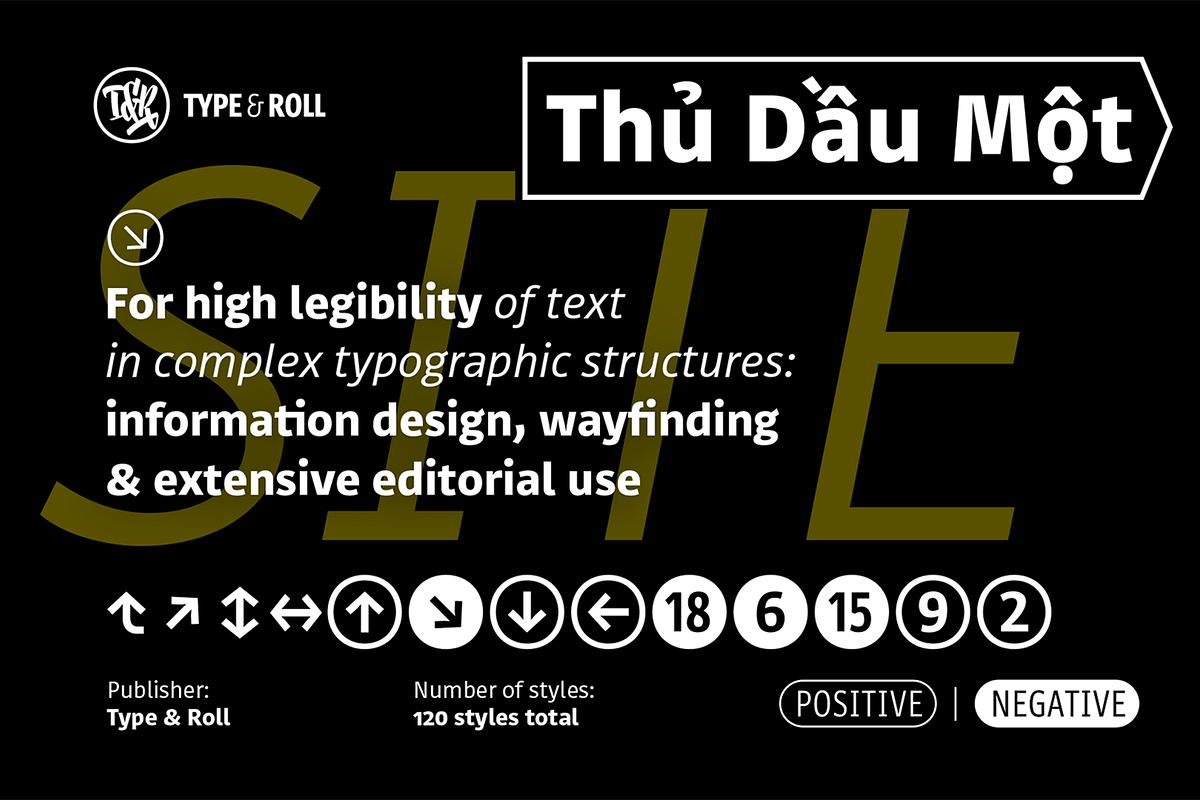
Site Negative Compressed
The Site type family is designed to facilitate legibility of text in complex typographic structures. It is especially suited for information graphics and signage, as well as for extensive editorial use. Site comes in 5 widths and 6 weights, with duplexed italics and styles suited for positive and negative polarization – 120 styles in total. The type parameters are shaped to support character recognition at a distance, at small visual angles and in different reading conditions. At the same time, narrow proportions and large x-height enables compact typesetting.